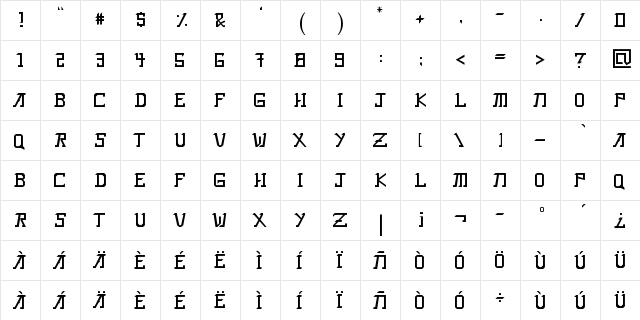
The Powerless Rise Bold
Design Context for The Powerless Rise Typeface
The Powerless Rise brings high-energy athletic personality to the page — its confident, muscular forms are built for impact. Its bold stroke weight gives it real presence on the page.
A natural choice for gym brands, fantasy sports, jersey lettering, and action-driven headlines.
Pro Tip: Use The Powerless Rise in all-caps headlines where its athletic energy can fully express itself. Pair with a solid, simple sans for supporting text.